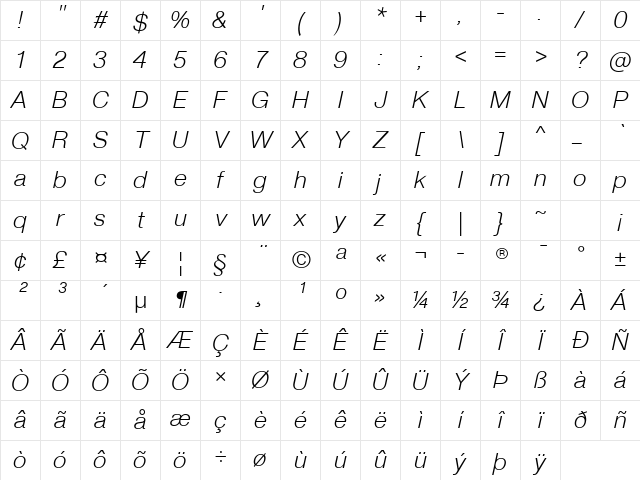
SemiLight Italic
Foundry: Monotype Imaging Inc.
Designer: Max Miedinger, Charles Nix, Monotype Studio, Jan Hendrik Weber
Complete SemiLight Italic glyph index. Displaying only characters natively supported by SemiLight Italic font.
Design Context for SemiLight
SemiLight is a composed and adaptable typeface that performs quietly and consistently across a wide range of design contexts. The slanted form adds forward momentum and visual energy. Its slender proportions lend an understated elegance to any composition.